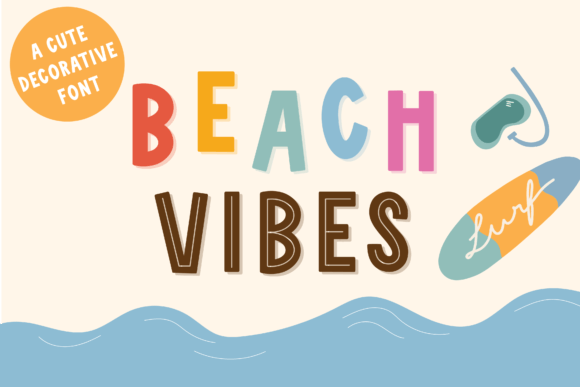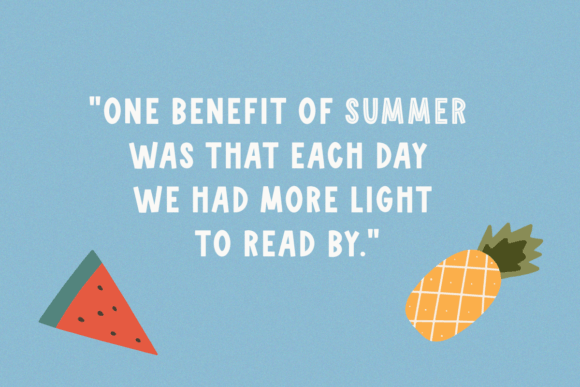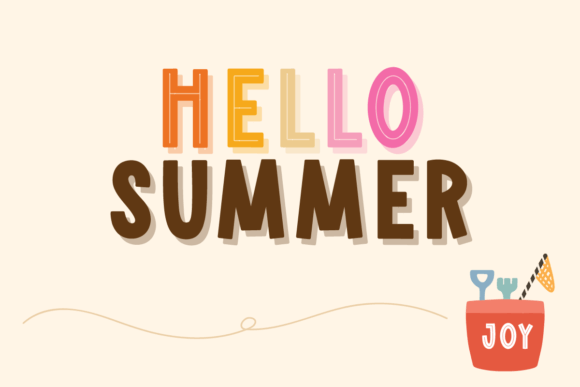
Beach Vibes Font: A Unique Handwritten Font for Summer Designs
About the Beach Vibes Font
The wait is over! The incredible Beach Vibes Font is now available for your design toolkit. Beach Vibes is a cute decorative font. Perfect for summer projects, shirts, Easter designs, invitation cards, mugs, stickers, playful quotes, creating posters, logos, greeting cards, packaging, decorating the illustration and so much more!
Beach Vibes Font Usage Examples
Beach Vibes Font Example